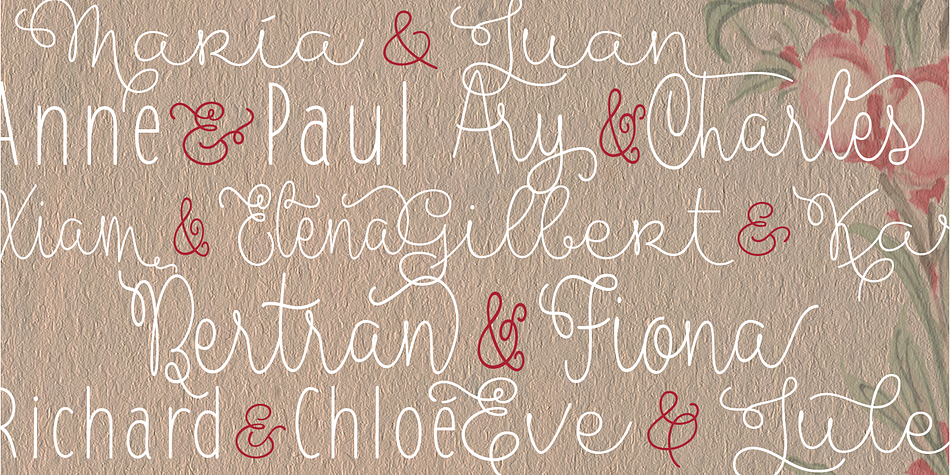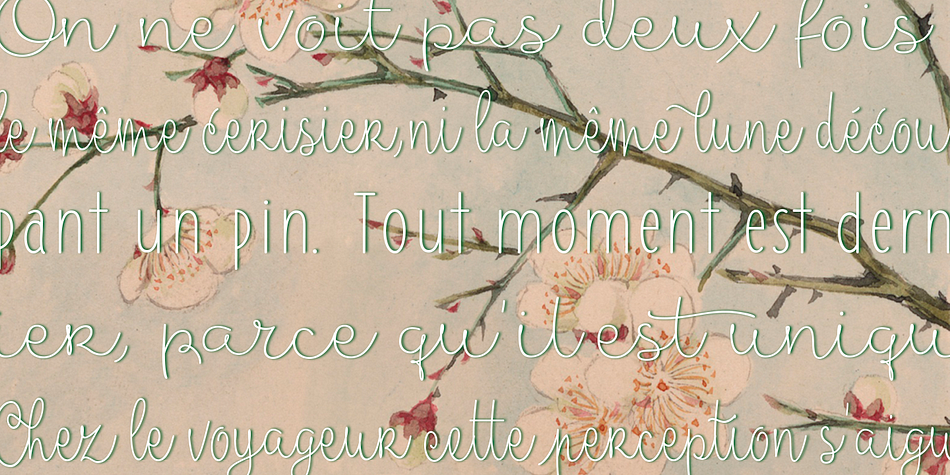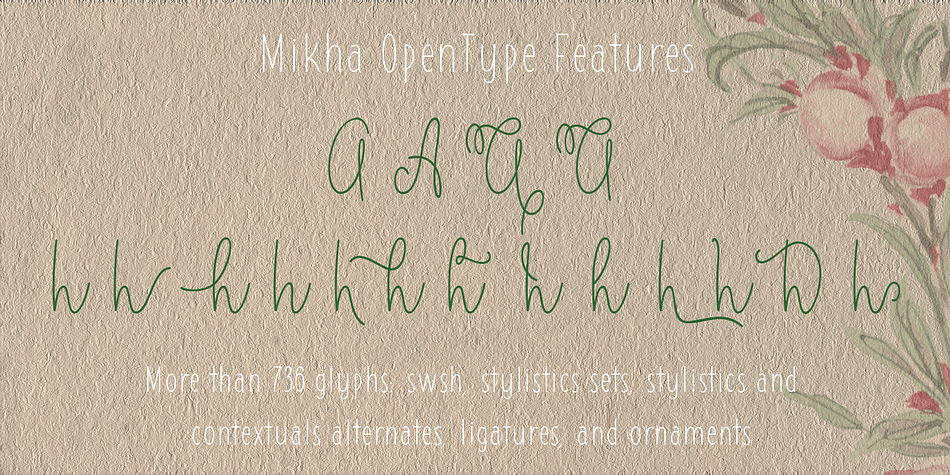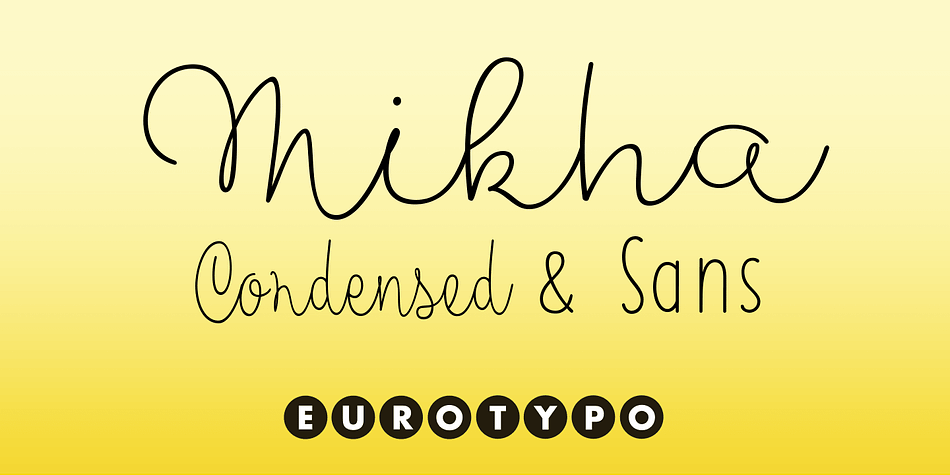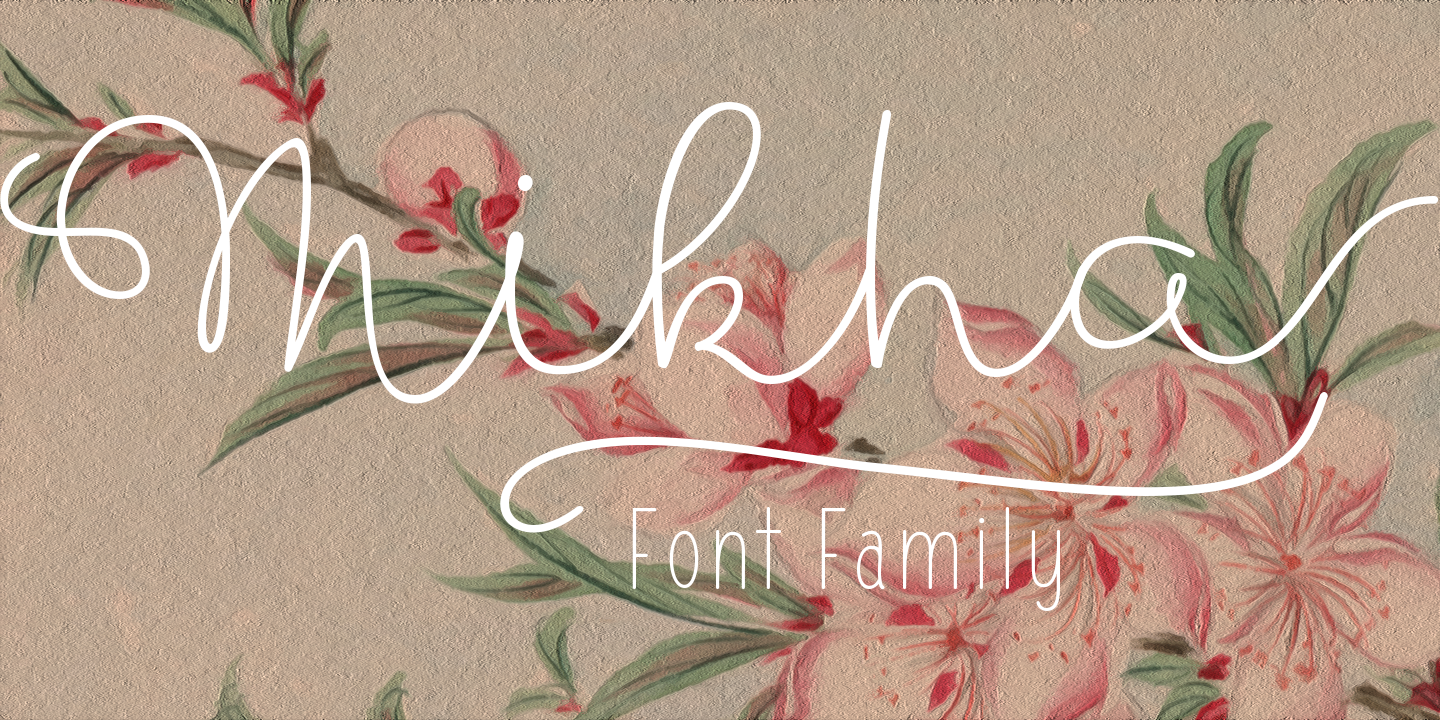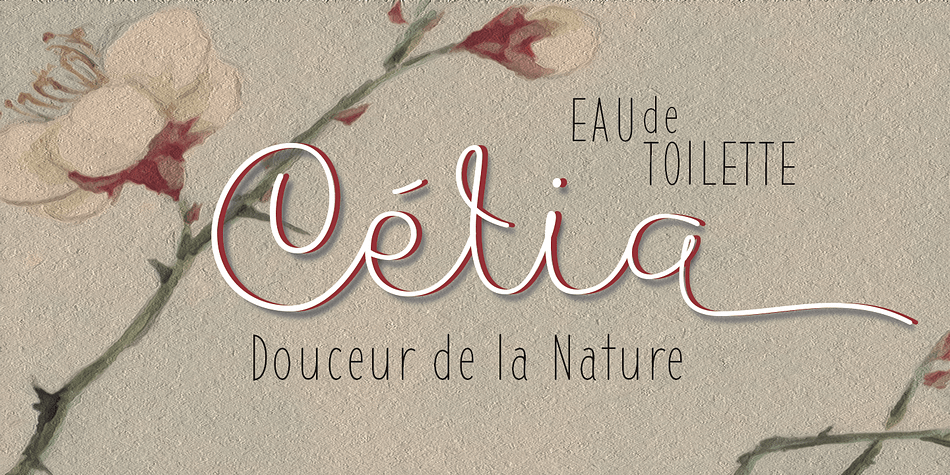
Designed by Carine de Wandeleer, Mikha is a multiple classification font family. This typeface has three styles and was published by Eurotypo.
Mikha, designed by Carine de Wandeleer, is a delightfully handwritten family font which keeps the casual drawing of a marker with clean strokes. Its slight bounce and intentional irregularity, gives your words a wonderful flow.
This new font family with 736 glyphs, includes Regular, Condensed and Sans. It has OpenType features such as Stylistics alternates, Swashes, Ligatures, up to five Stylistic sets by letter, initial and terminal forms in upper and lower, ornaments that allow you to mix and match pairs of letters and a Central European language support to fit your design. This OpenType features may only be accessible via OpenType-aware applications, or the Character Map to view and copy any of the extra characters to paste into your favorite text editor/app. This will help your creativity and make it easier to make expressive and elegant your typographic work. Also with Mikha Sans it is possible to write all in capitals.
Mikha looks lovely on wedding invitations, greeting cards, logos, posters, labels, t-shirt design, logos, business-cards and is perfect for using in ink or watercolor based designs, fashion, magazines, food packaging and menus, book covers and whatever your imagination holds!